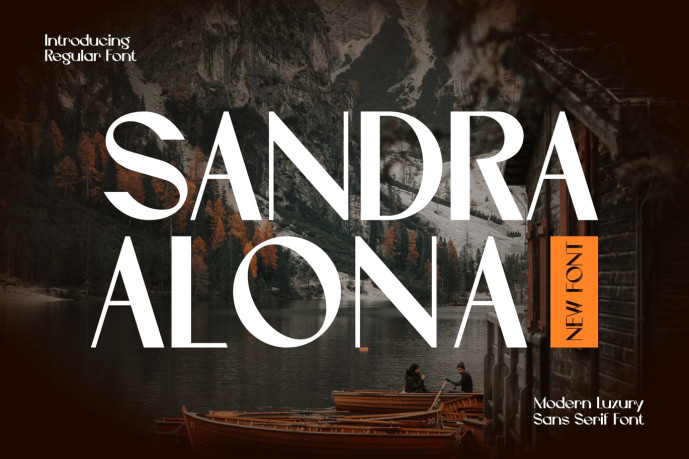
Sandra Alona – Modern Luxury Sans Serif Font
Designer: maxhendra27
Sandra Alona is a super thick typeface with more traditional letter shapes, making it perfect for creating (or recreating) the concise look of film poster production credits.